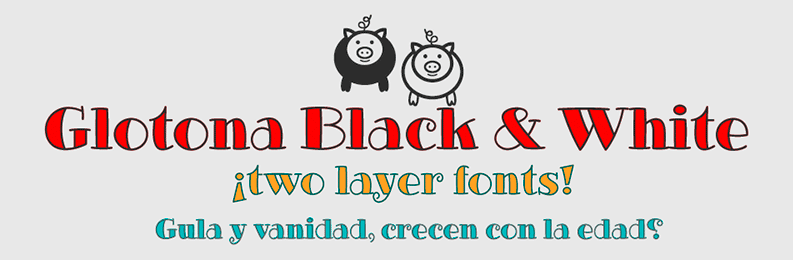
Glotona Black & White are two modernist typography handwritten and layered to create multicolored typographic titles. Include Bitcoin symbol: b# (ligatures) Free only for personal use =========================== FULL VERSION + COMMERCIAL LICENSE: http://defharo.com/fonts/glotona-layer-typefaces/ |